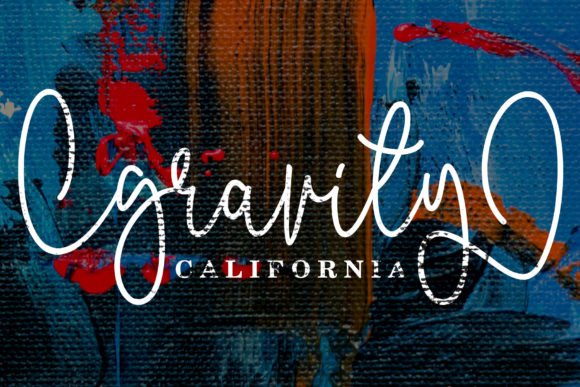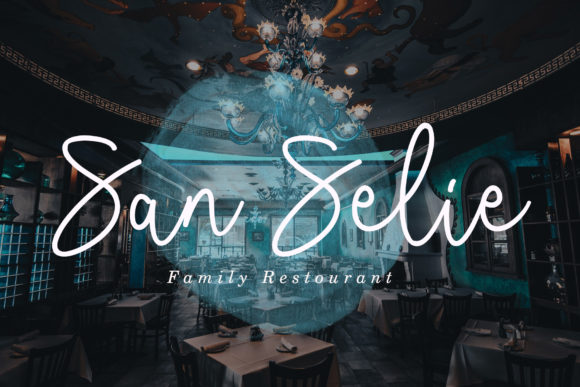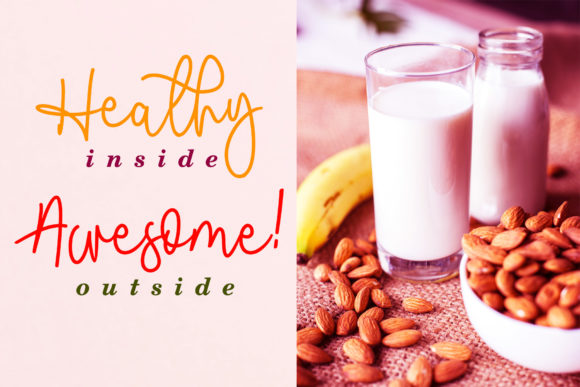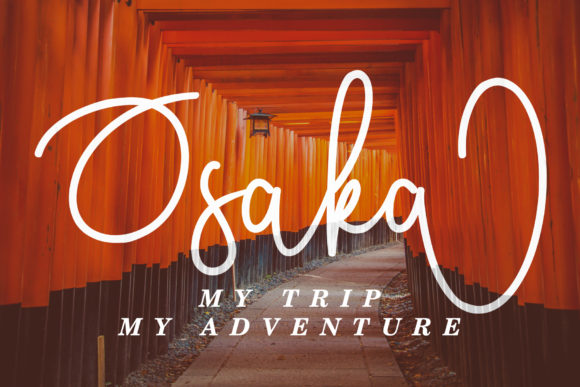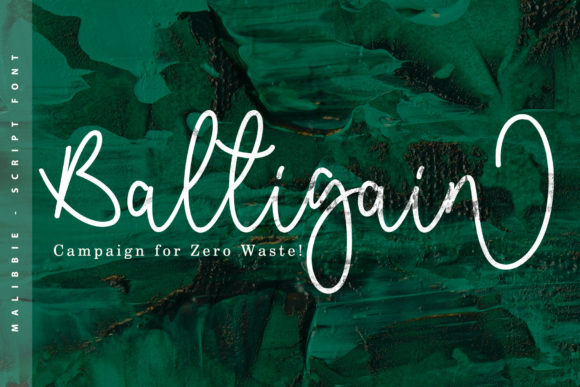
Introduction to Malibbie Font
As a designer, have you ever found yourself staring at a blank canvas, searching for that perfect font to bring your creative project to life? You’ve poured your heart and soul into your design, but something’s missing. That’s when you stumble upon it – a font that speaks to you, a font that makes you feel like you’re the only one who’s ever seen it. For many designers, that font is the Malibbie Font.
With its bold style and unique charm, the Malibbie Font is a game-changer for any design project. Whether you’re working on a high-quality brochure, a website, or even a social media graphic, this font is sure to make your design stand out from the crowd. And the best part? It’s a free download, available for designers to use as a valuable design resource.
Key Features of Malibbie Font
- High-quality design resource ideal for creative projects, including logos, posters, and more
- Unique, hand-drawn design with a transparent background, allowing for maximum flexibility and customization
- Comes in various font sizes and styles, from bold to italic, to cater to different design requirements
Honest Review: Malibbie Font
As a designer, I’m always on the lookout for high-quality design resources to elevate my creative projects. The Malibbie Font caught my eye, and I decided to give it a try.
- ✨ The Malibbie Font has a unique and elegant design that’s perfect for a variety of projects.
- ✨ The font is highly customizable, making it easy to adapt to different design needs.
- ✨ The transparent background feature is a game-changer for designers who want to create seamless designs.
- ⚠️ The font may not be suitable for very large-scale projects due to its limited character set.
- ⚠️ Some users may find the font’s unique design to be too experimental for their taste.
Overall, I’m impressed with the Malibbie Font. It’s a great addition to any designer’s toolkit, and I would recommend it to anyone looking for a high-quality, free design resource.
Malibbie Font is a high-quality design resource that can elevate your creative project to the next level. This free download offers a unique and stylish font that can be used for various purposes, including branding, logos, and text-based designs.
To get the most out of Malibbie Font, consider the following tips: use a transparent background to make the font stand out, experiment with different font sizes and styles to create visual interest, and pair the font with other high-quality design resources to create a cohesive look.
Common Use Cases for Malibbie Font
Malibbie Font is commonly used for a variety of purposes, including branding, logos, text-based designs, and social media graphics. It’s also a popular choice for creating invitations, menus, and other print materials.
Q: Does the Malibbie Font have a transparent background?
Yes, the Malibbie Font has a transparent background, making it easy to use on any design surface. The font’s transparent background allows you to place it on top of images, textures, or other design elements without worrying about distracting backgrounds.